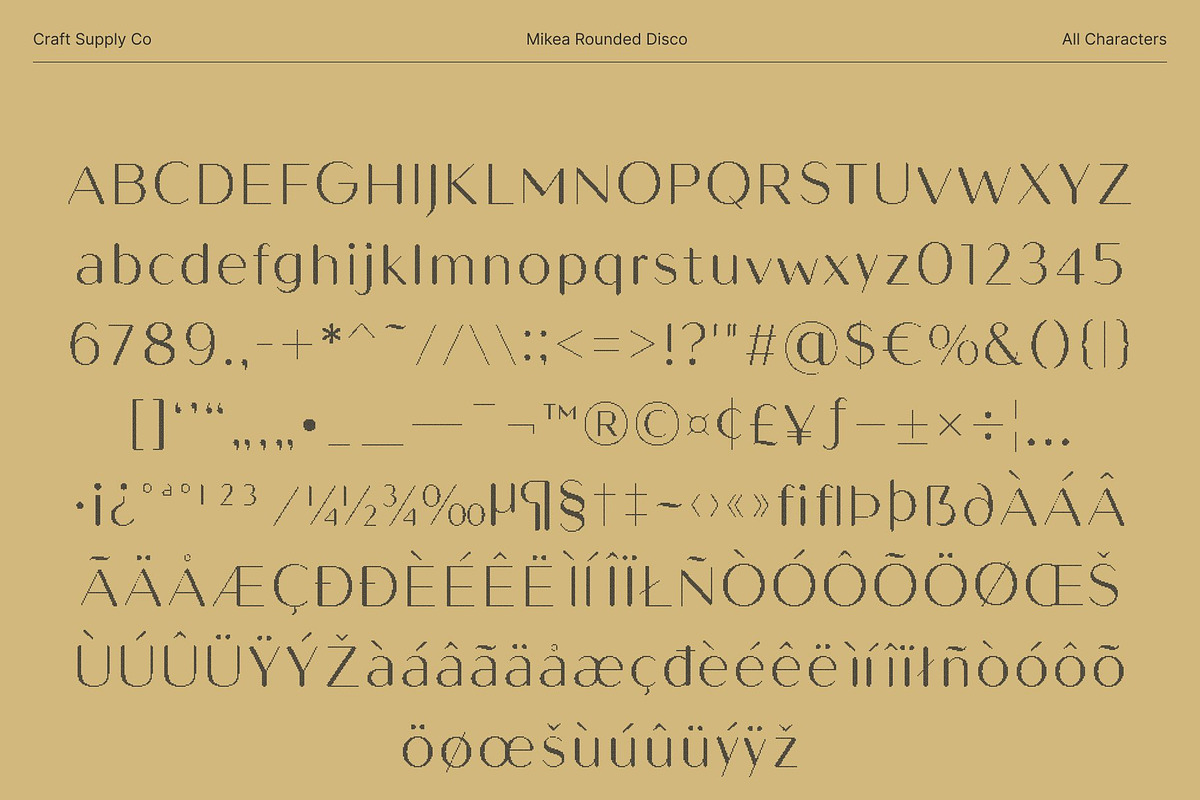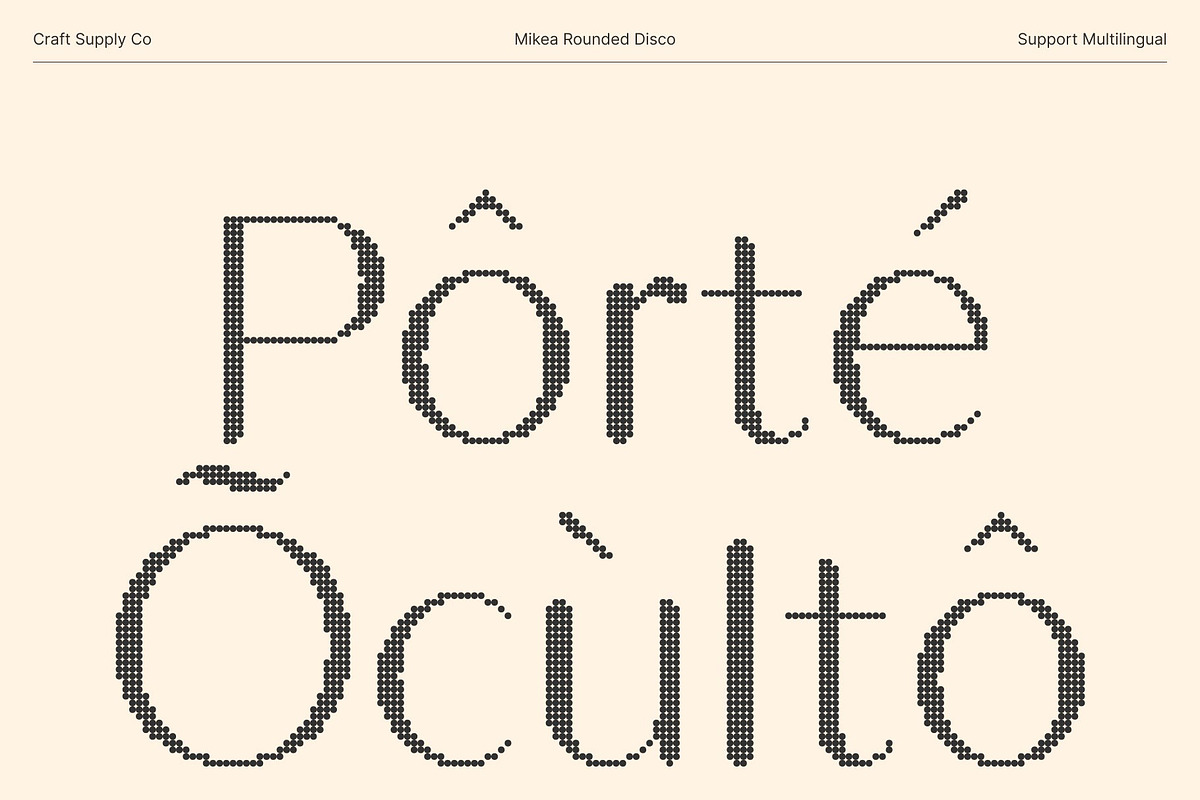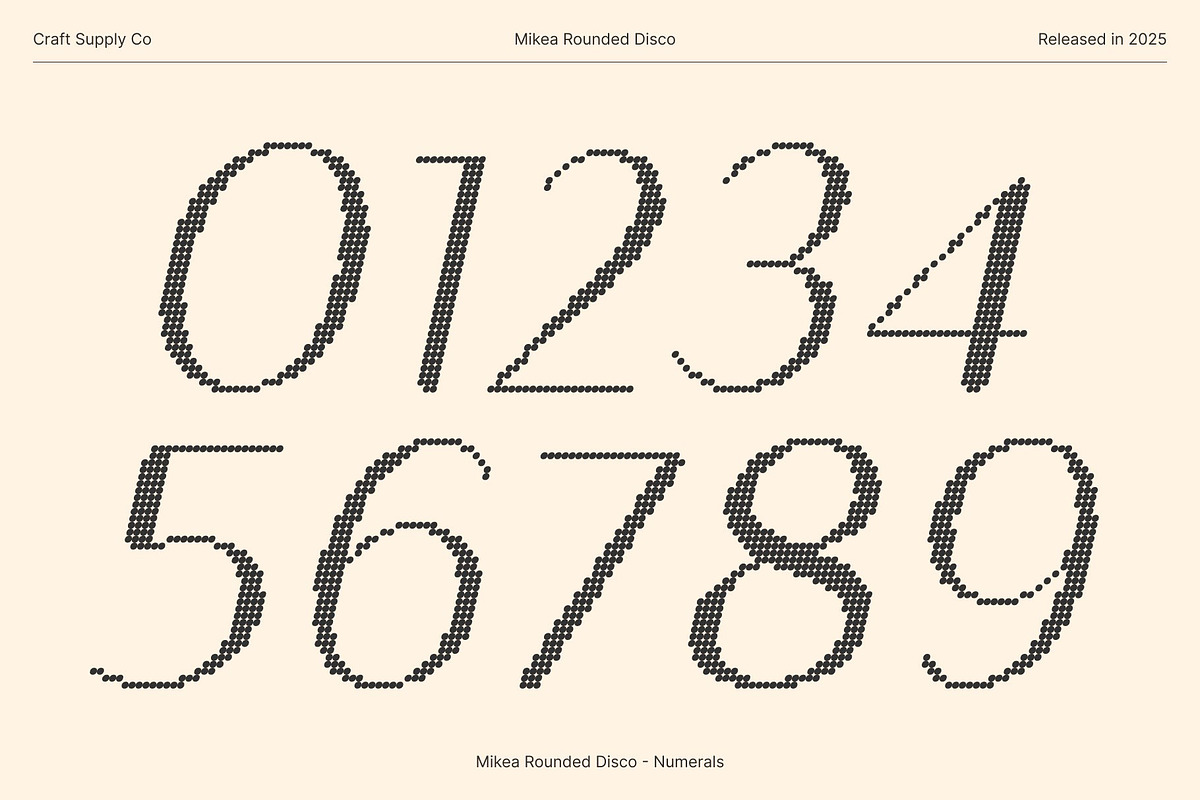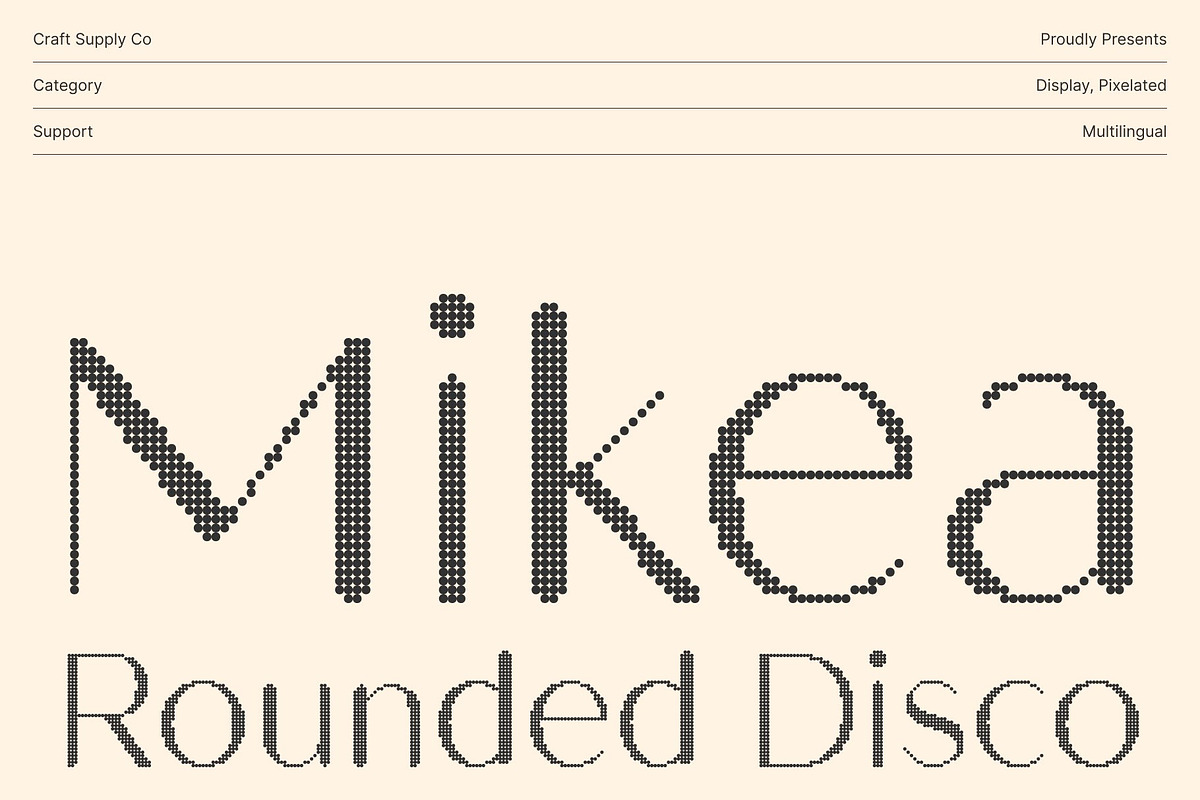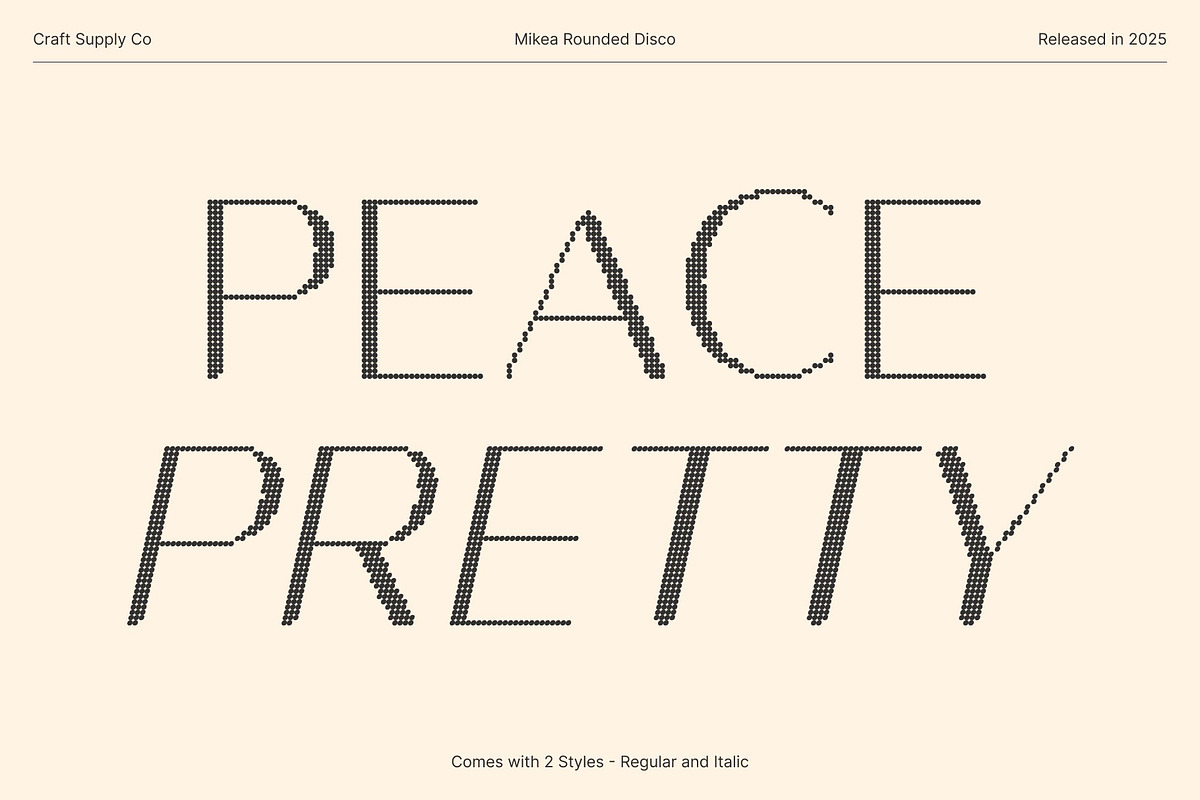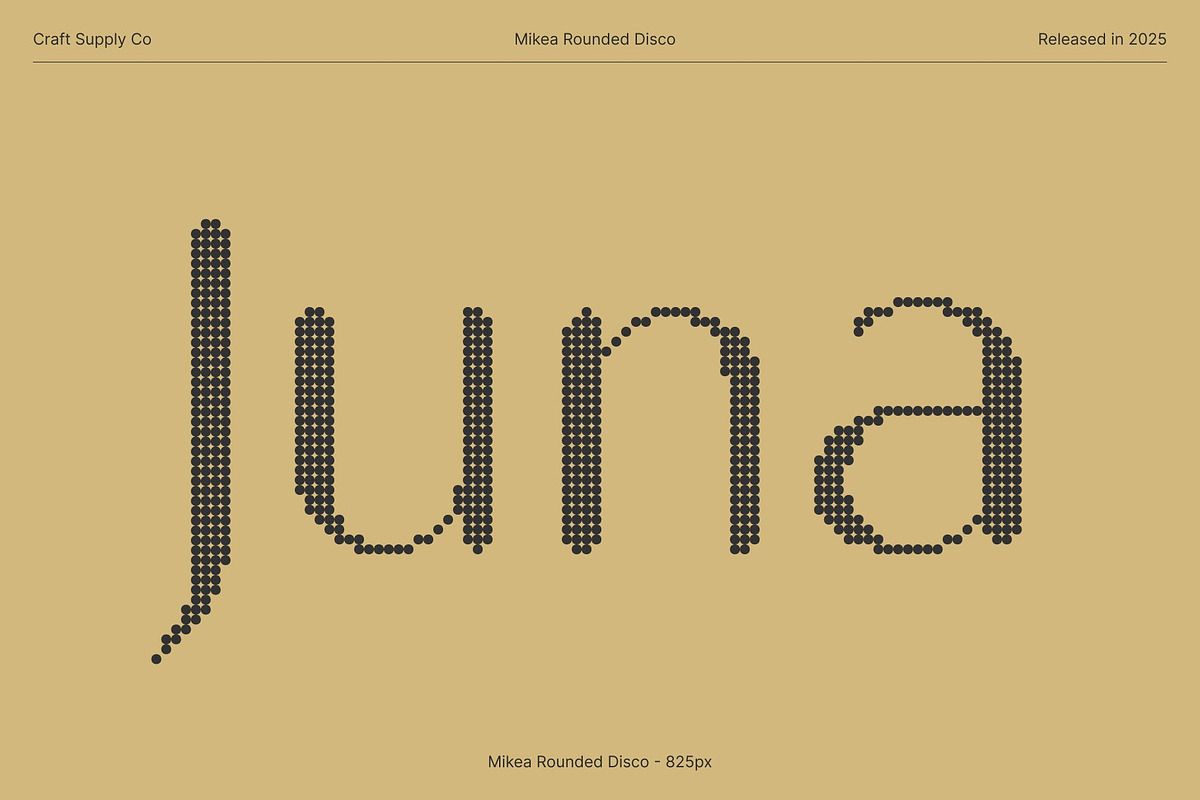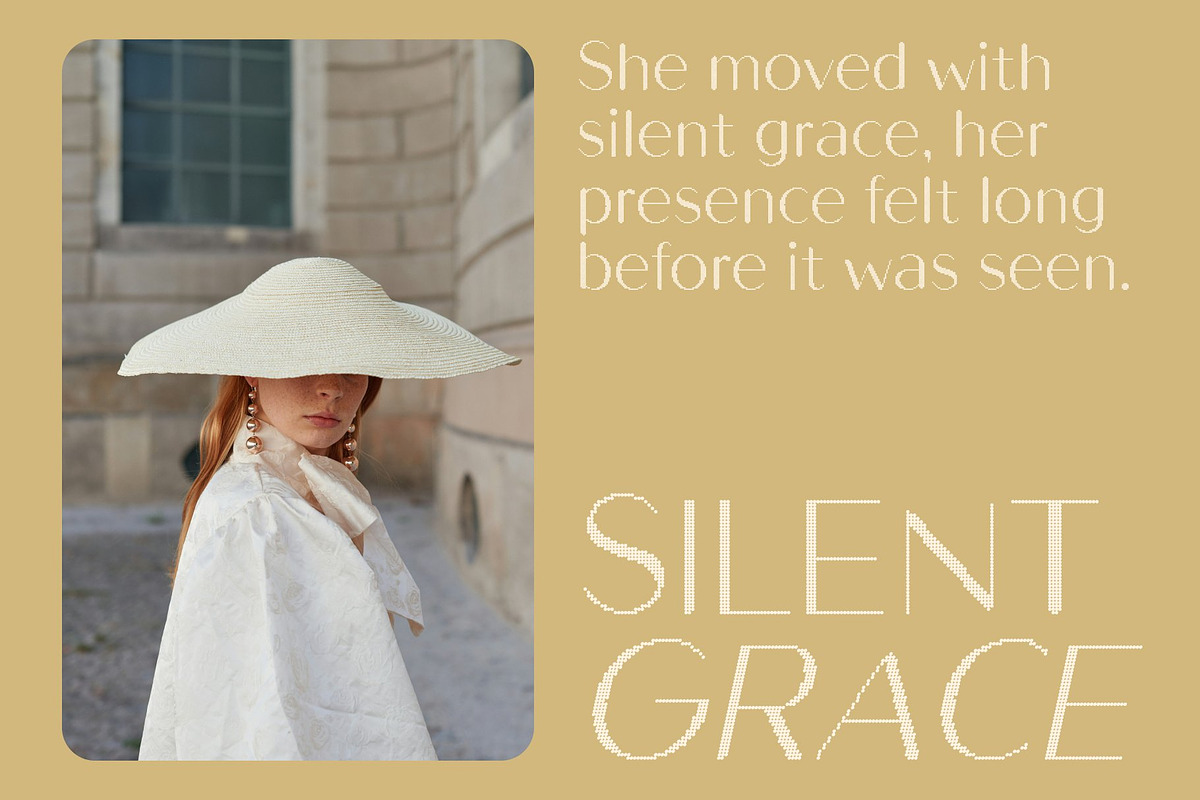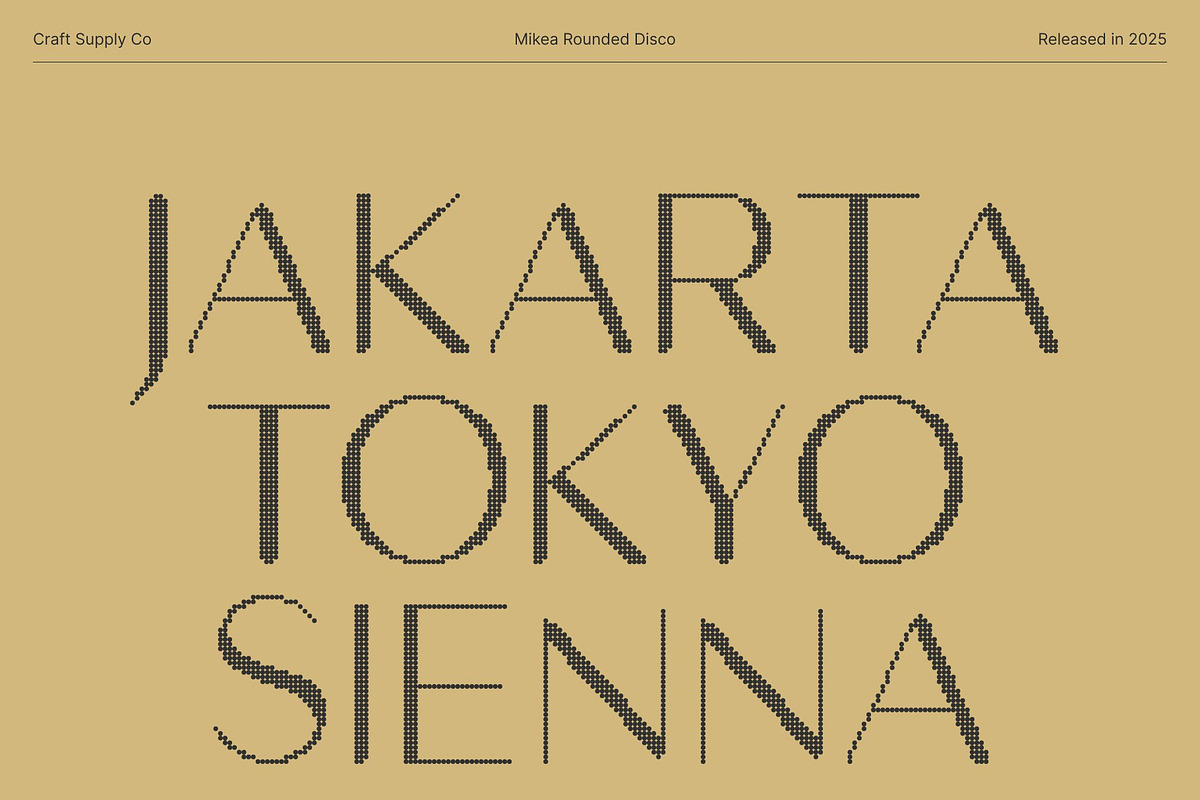
Mikea Rounded Disco
Mikea Rounded Disco – Luxury Sans Serif with Glamorous Shine
Refined Elegance with a Modern Twist This is a luxury sans serif font crafted to exude refinement, exclusivity, and polished modernity. Its smooth rounded shapes deliver a clean, high-end aesthetic, while the added disco effect introduces a glamorous shimmer that elevates every letterform. This perfect balance of sophistication and visual sparkle makes the font stand out in upscale, contemporary design work.
Smooth Rounded Forms for Premium Appeal With its rounded sans serif construction, this font offers a sleek and approachable look without sacrificing professionalism. Each curve is thoughtfully designed to create clarity, balance, and a premium feel ideal for brand identities that aim to feel modern, elegant, and trustworthy.
Disco Effect for a Touch of Glamour The signature disco effect brings a radiant, glamorous finish to the font. This shimmering texture adds vibrancy, motion, and depth, transforming simple typography into an eye-catching design feature. The effect enhances luxury-oriented visuals, giving them a stylish and memorable personality.
Perfect for High-End Branding and Editorial Work This font is a powerful choice for projects that need to communicate elegance and exclusivity. Whether used in high-end branding, editorial layouts, magazine covers, product packaging, or luxury promotional materials, it elevates the design with a refined yet contemporary charm. This font ensures every title, headline, or brand wordmark looks polished, modern, and irresistibly stylish.
- Mikea Rounded Disco Regular
- Mikea Rounded Disco Italic